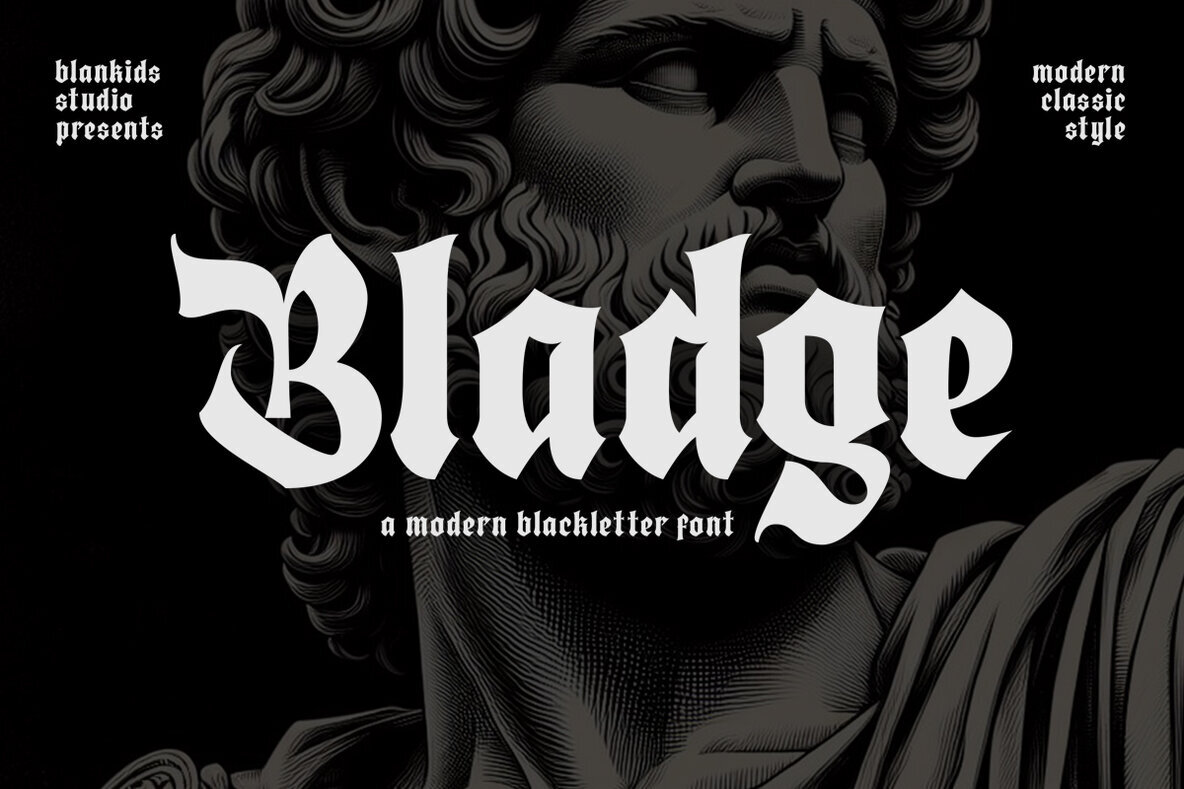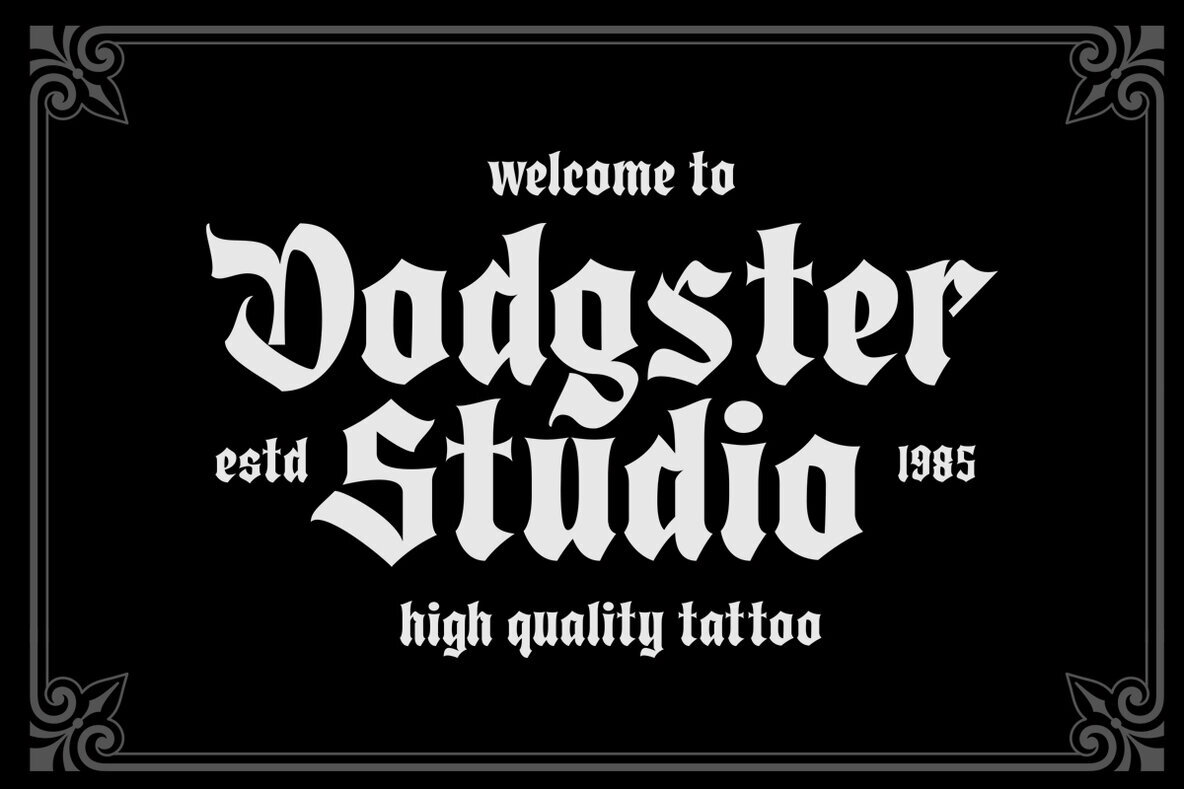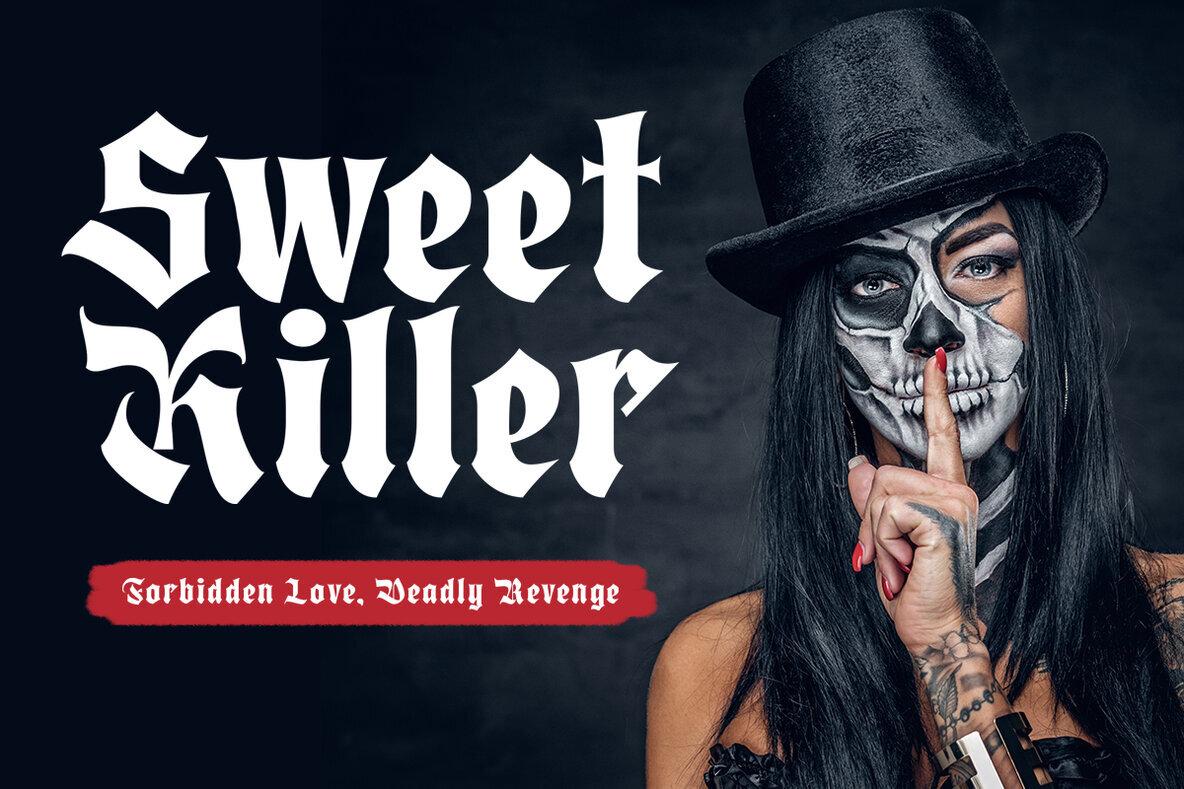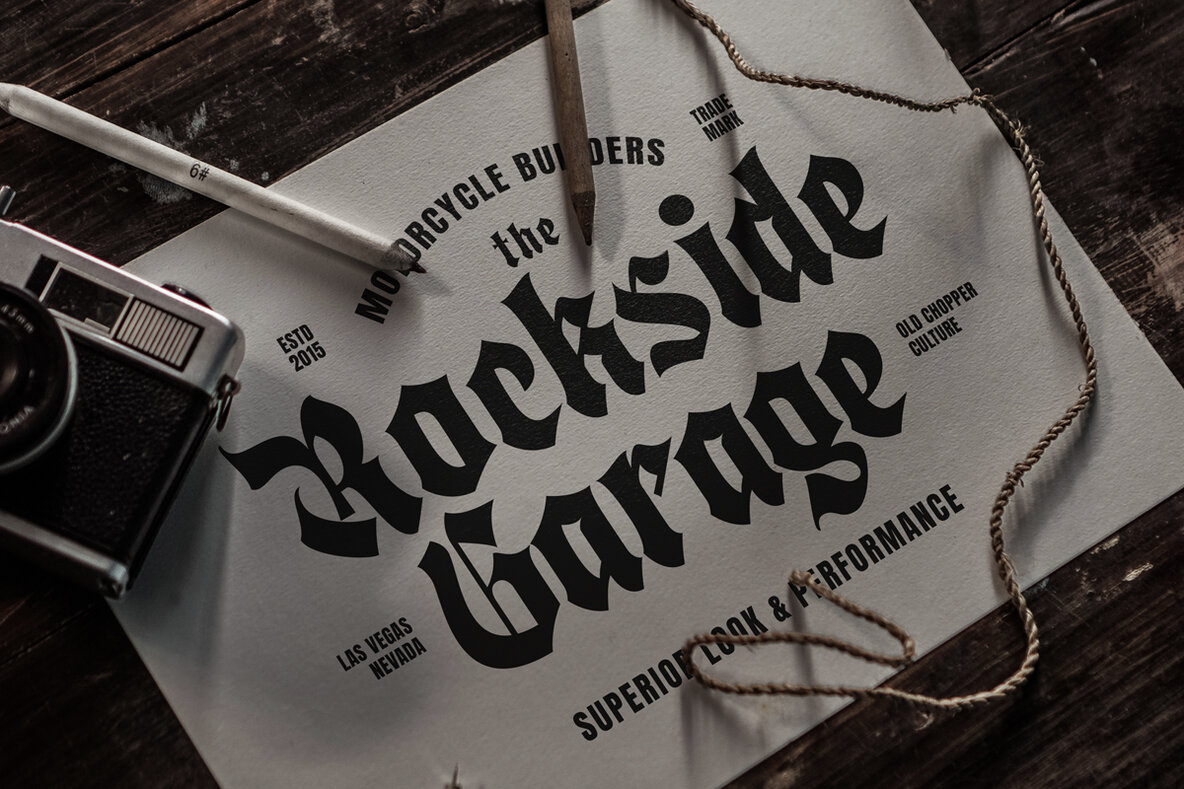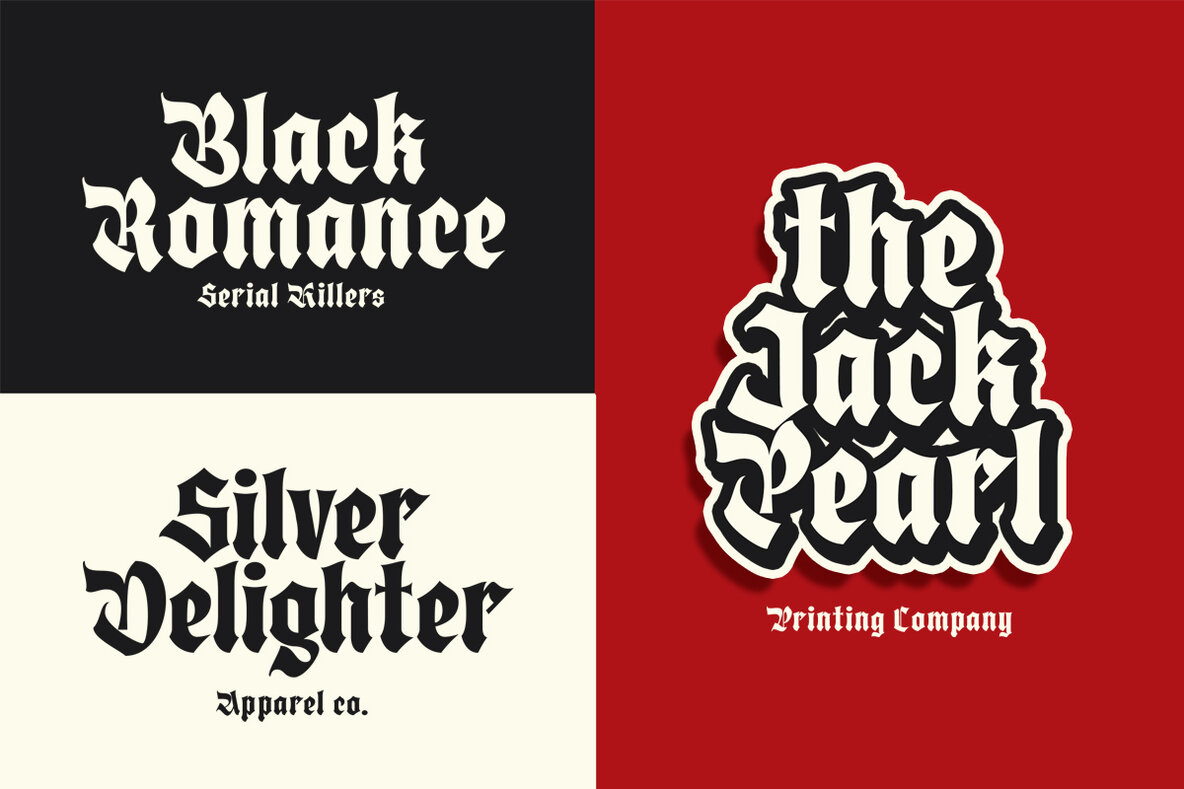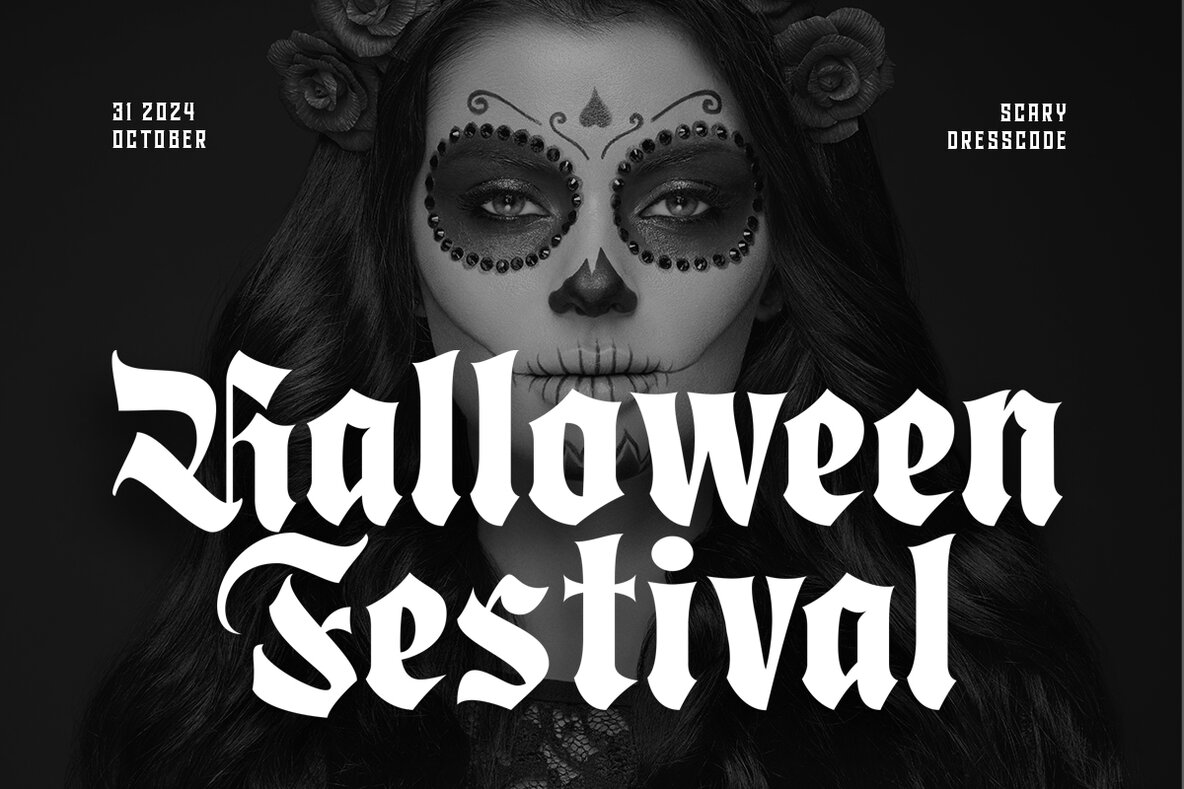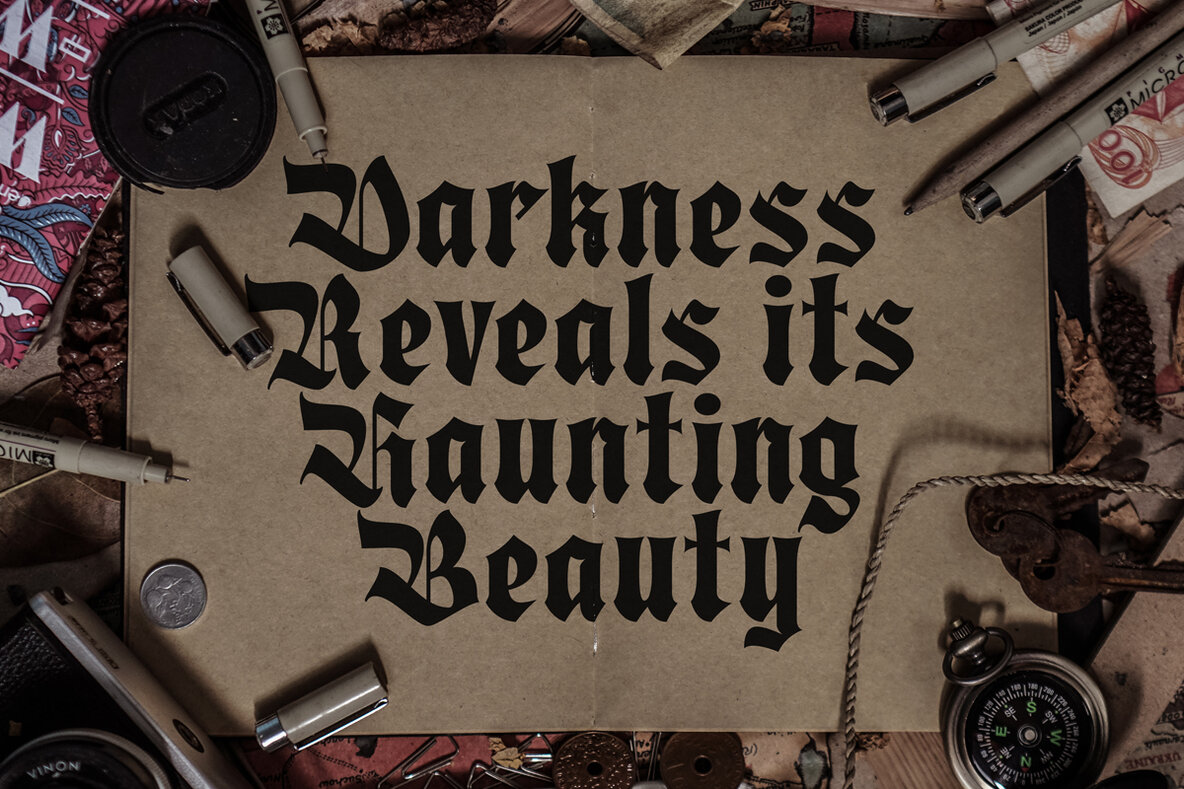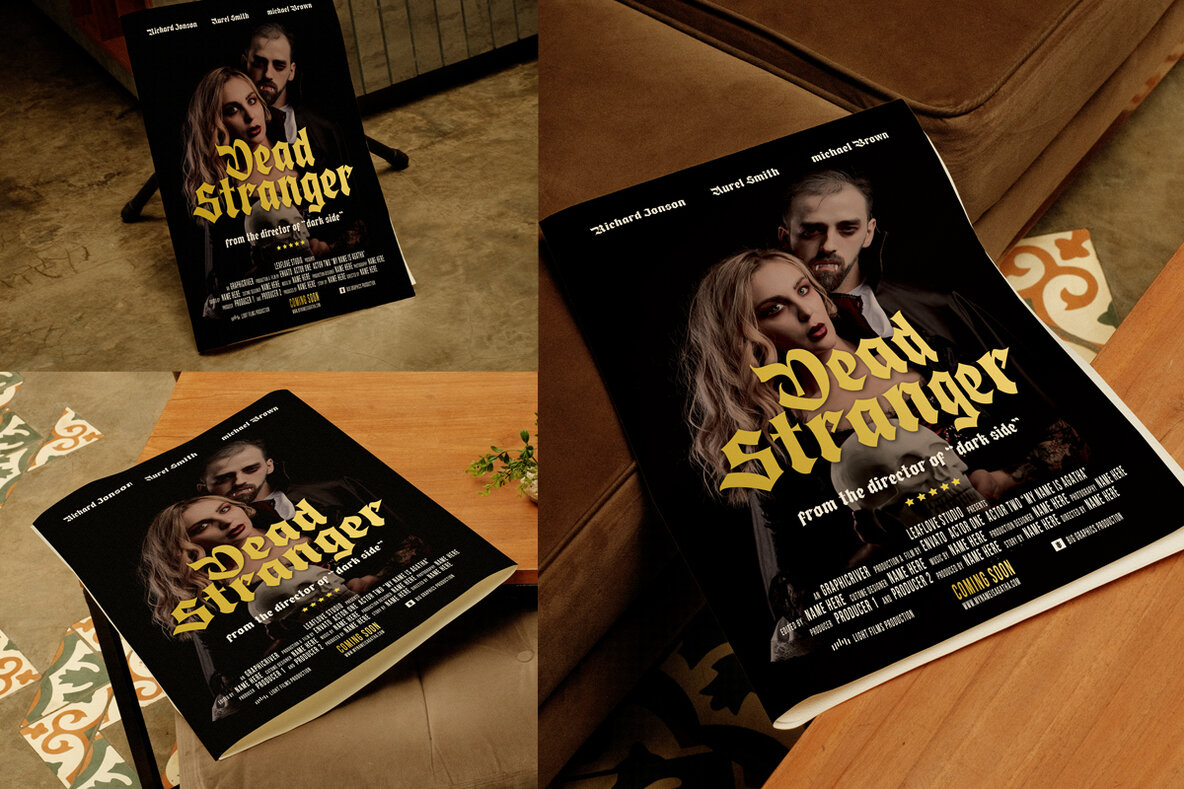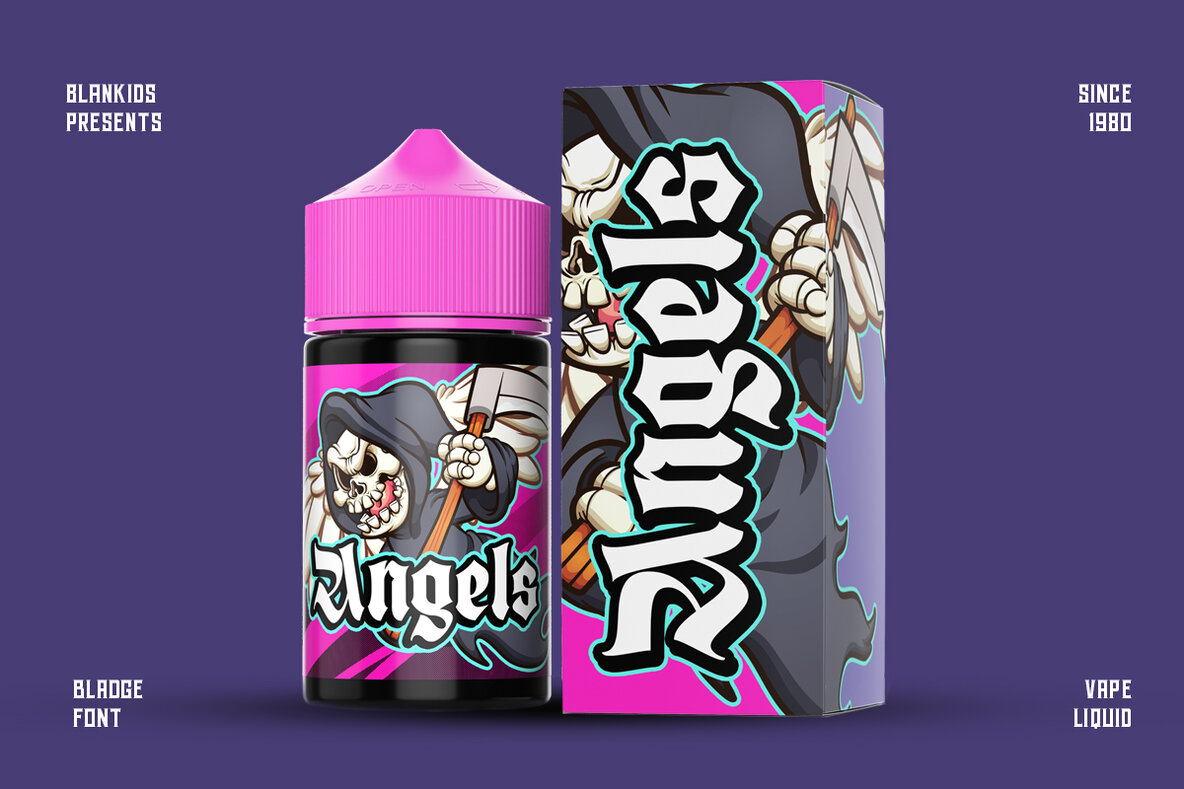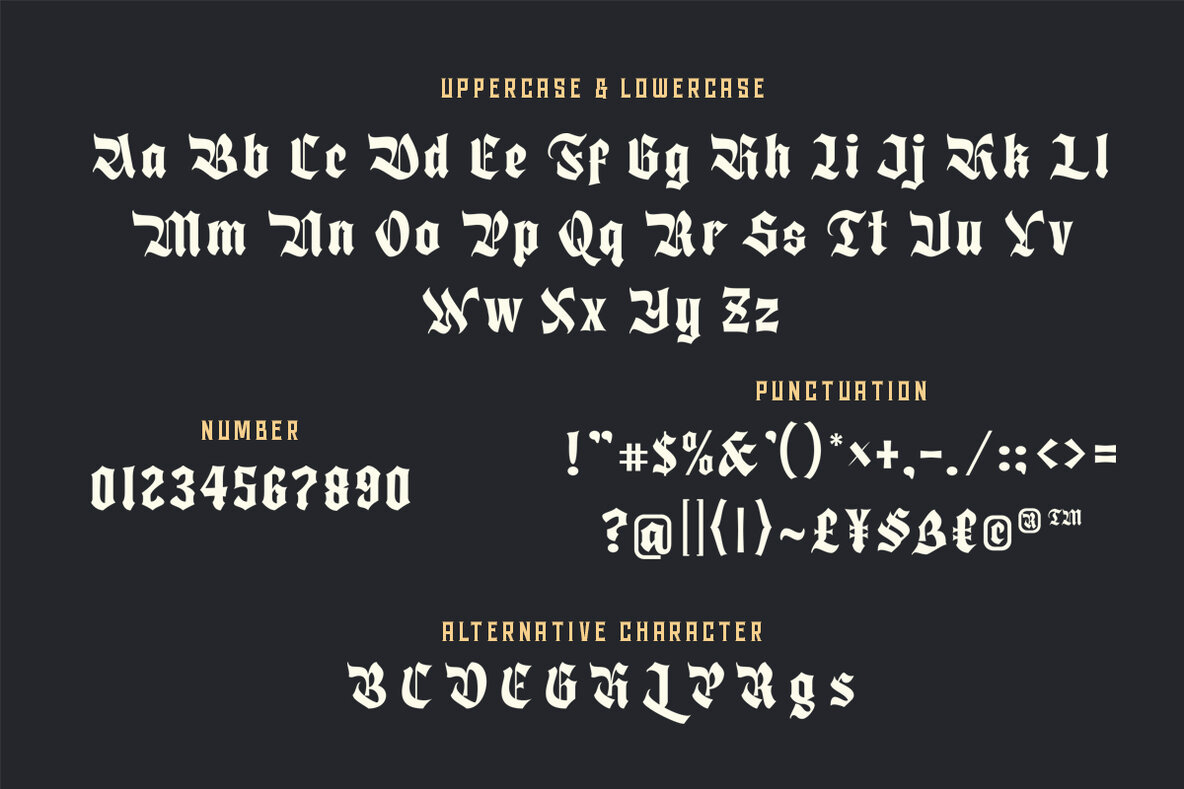
Bladge Font
Bladge Regular
Bladge boldly merges the classic sophistication of blackletter gothic with a contemporary style, tailored for your western and gothic-themed design ventures. Suitable for projects that demand attention, Bladge offers the perfect blend of historic charm and modern allure. The unique style of Bladge serves as an excellent choice for branding across various industries. It's particularly compelling for tattoo parlors, barbershops, and fashion labels, delivering a timeless yet modern aesthetic that ensures a memorable impact. Let Bladge elevate your designs and leave an unforgettable mark with its distinctive presence.Bladge: Gothic Elegance Meets Modern Flair